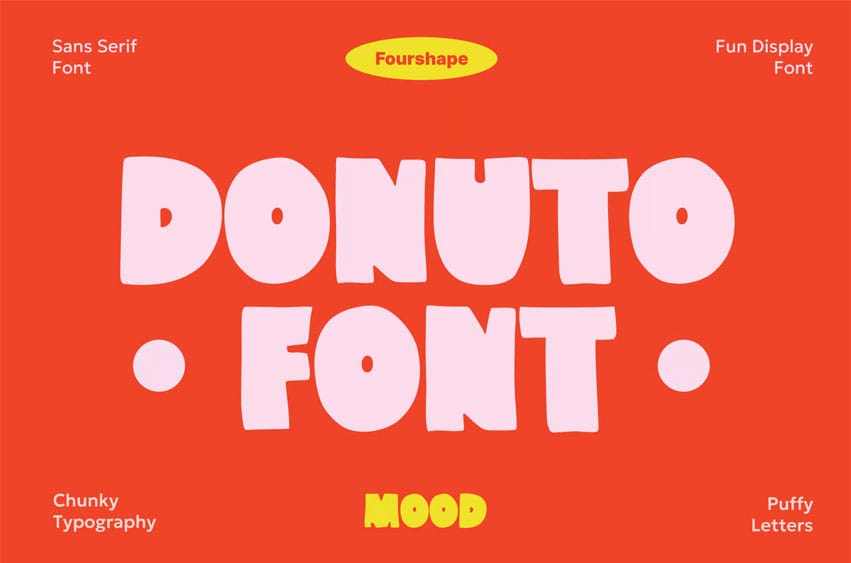
Donuto Bold Font Bold and friendly display font designed to bring warmth and charm to your creative projects.
With its rounded edges and slightly quirky letterforms, this font feels handcrafted and approachable, making it perfect for branding, packaging, café menus, posters, and lifestyle products.